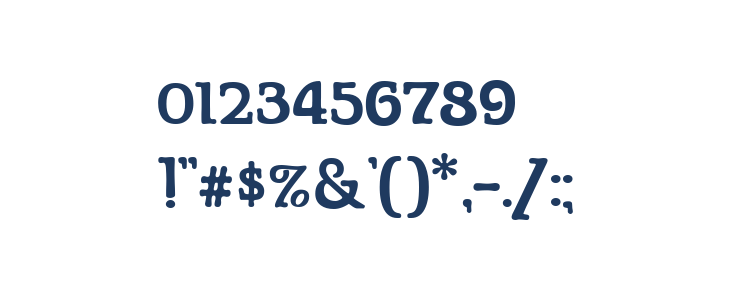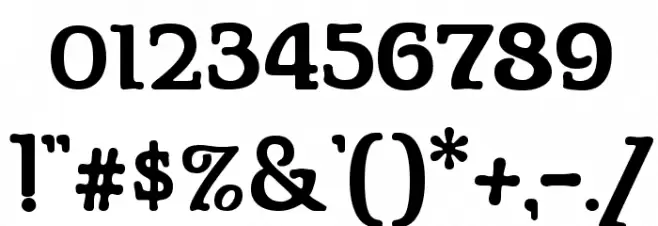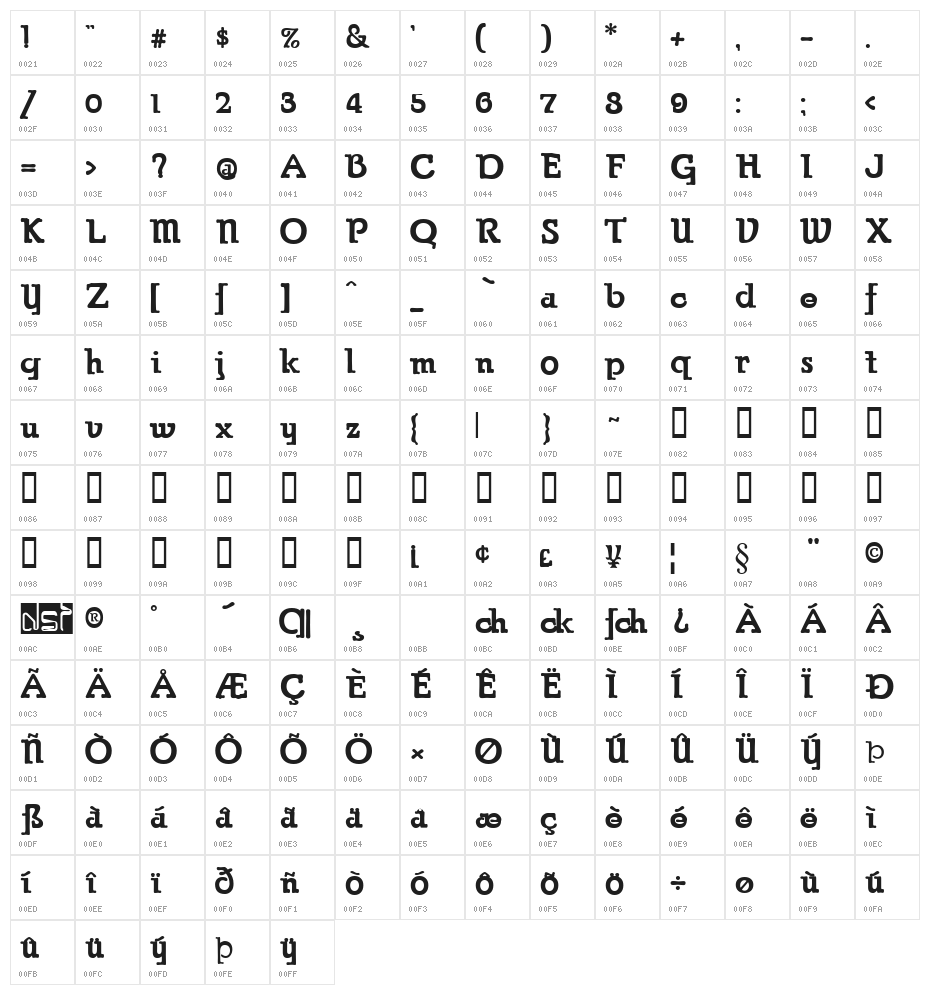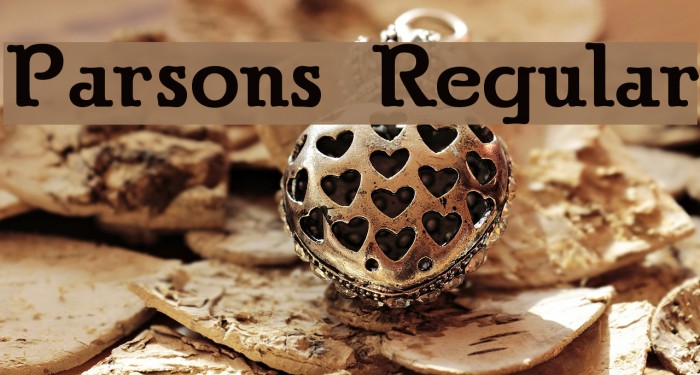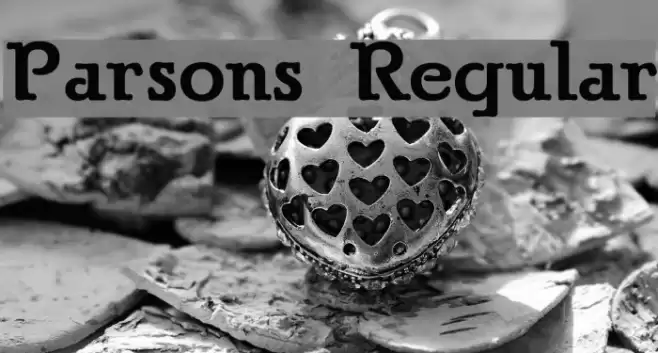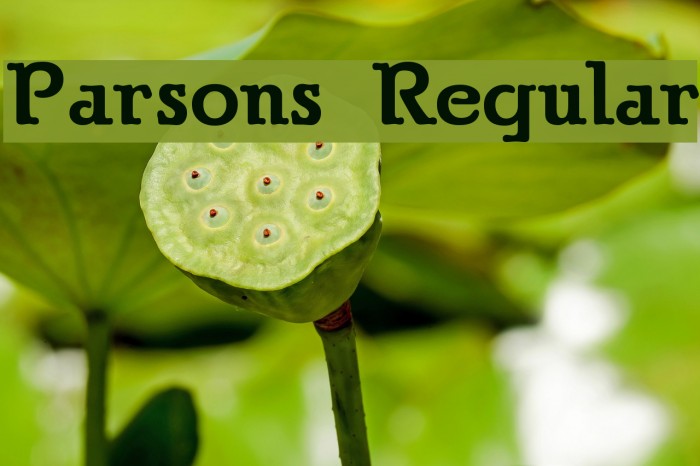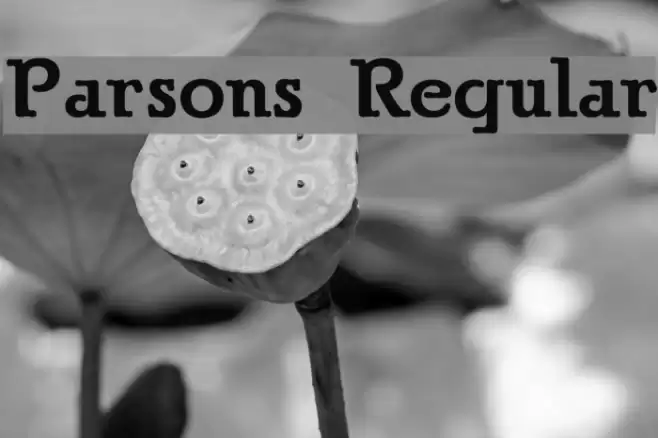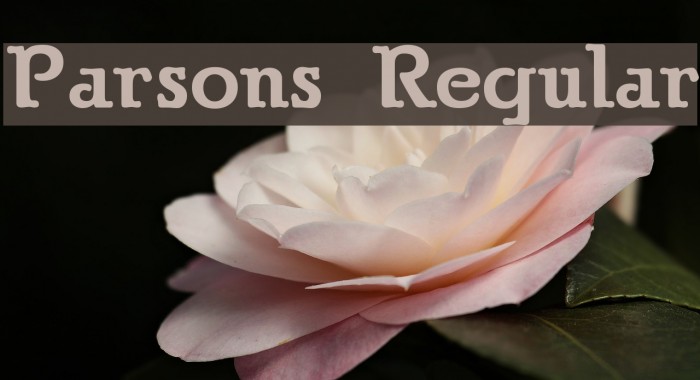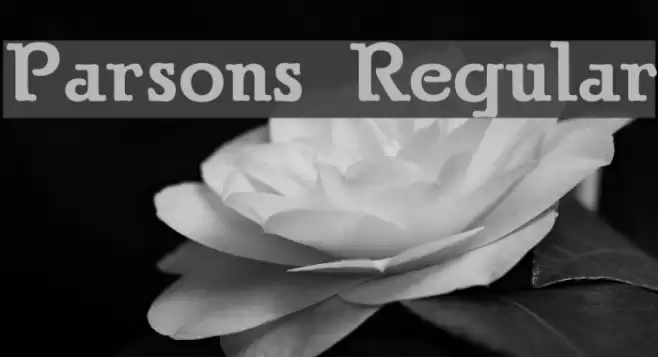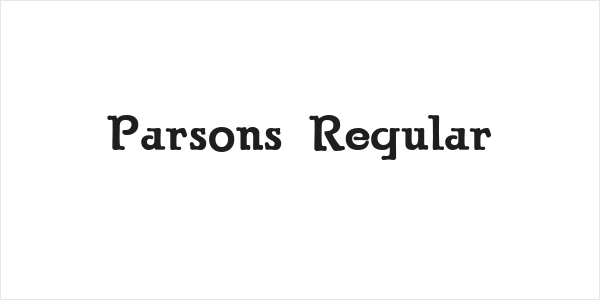
Parsons Regular Font
Parsons Regular Description
This font features a unique blend of vintage and modern elements, characterized by its bold and rounded serifs. The uppercase letters are slightly condensed, giving a strong and compact appearance, while the lowercase letters maintain a consistent height with subtle curves. The numerals are distinct and easily readable, with a uniform thickness that complements the overall design. Special characters are crafted with attention to detail, ensuring they integrate seamlessly with the alphabetic characters. The font's style is both decorative and functional, making it versatile for various design needs.
| Proposed Projects | Ideal for branding, poster design, book covers, and vintage-themed projects. |